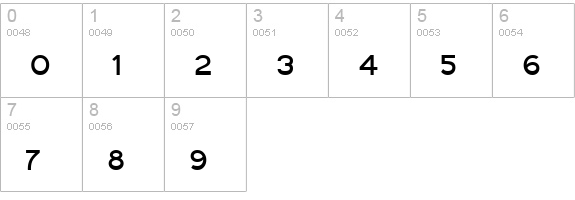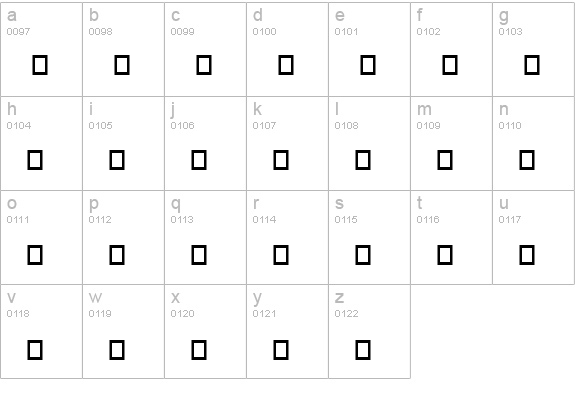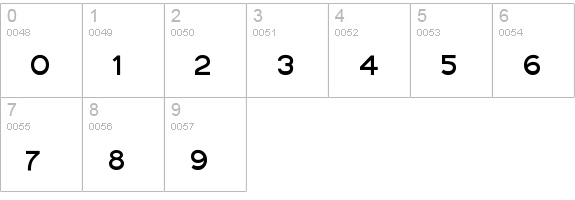
Gautami Font Details
Introducing Gautami, a sleek and modern font that effortlessly combines elegance with readability. This versatile typeface is perfect for a wide range of design projects, from branding to editorial design and everything in between. With its clean lines and subtle curves, Gautami exudes sophistication and professionalism. Best of all, Gautami is available for free download at FontsMarket.com. Whether you're a seasoned designer looking to add a fresh new font to your collection or a student working on a project, Gautami is the perfect choice. Don't miss out on this fantastic opportunity to enhance your designs with this stunning typeface. Download Gautami today and take your creations to the next level!